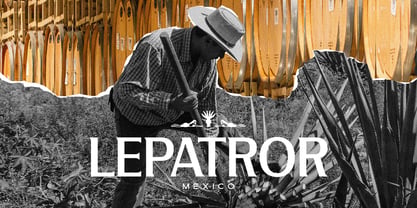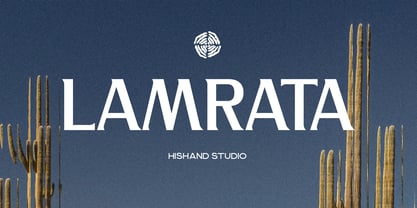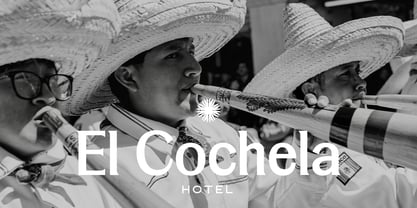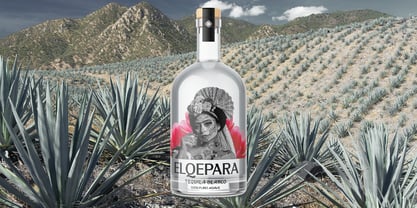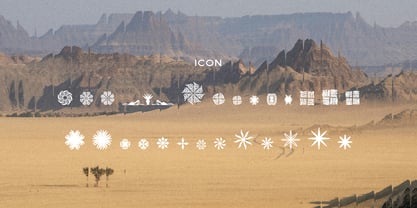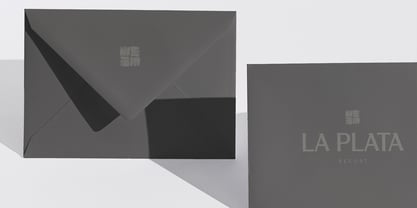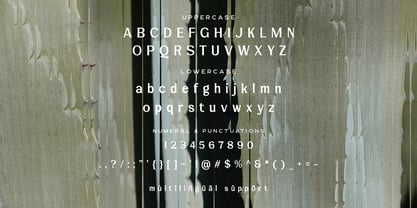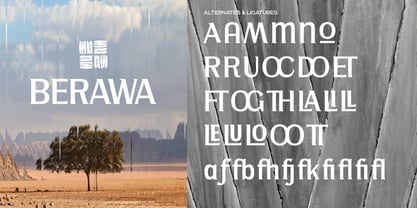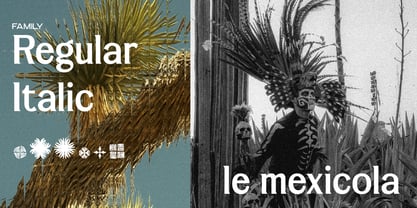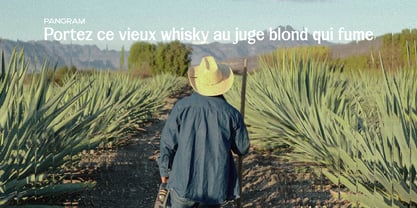
Lamrata
by Hishand Studio
The Lamrata Font Family was designed by Putu Dody Permana and published by Hishand Studio. Lamrata contains 3 styles and family package options. More about this family
Lamrata is a display serif font that combines bold structure with refined, classic aesthetics. Built with strong, even strokes, it avoids thin contrasts and instead focuses on solid, confident letterforms. The serifs are subtle yet distinctive, adding a touch of elegance without taking away from its clean and modern feel. This font is designed to stand out. Its balanced proportions and slightly stylized shapes give it a cool, artistic edge while still maintaining readability at larger sizes. Lamrata feels both timeless and fresh, making it a versatile choice for designers who want something classic but not outdated. Perfect for logos and branding, Lamrata brings a premium and memorable look to any project. A great choice for logo, branding, headlines, and packaging, offering a distinctive look that feels both solid and refined. Complete with - ligatures - alternates - regular - Italic - icon - kerning - multilingual support
Designers: Putu Dody Permana
Foundry: Hishand Studio